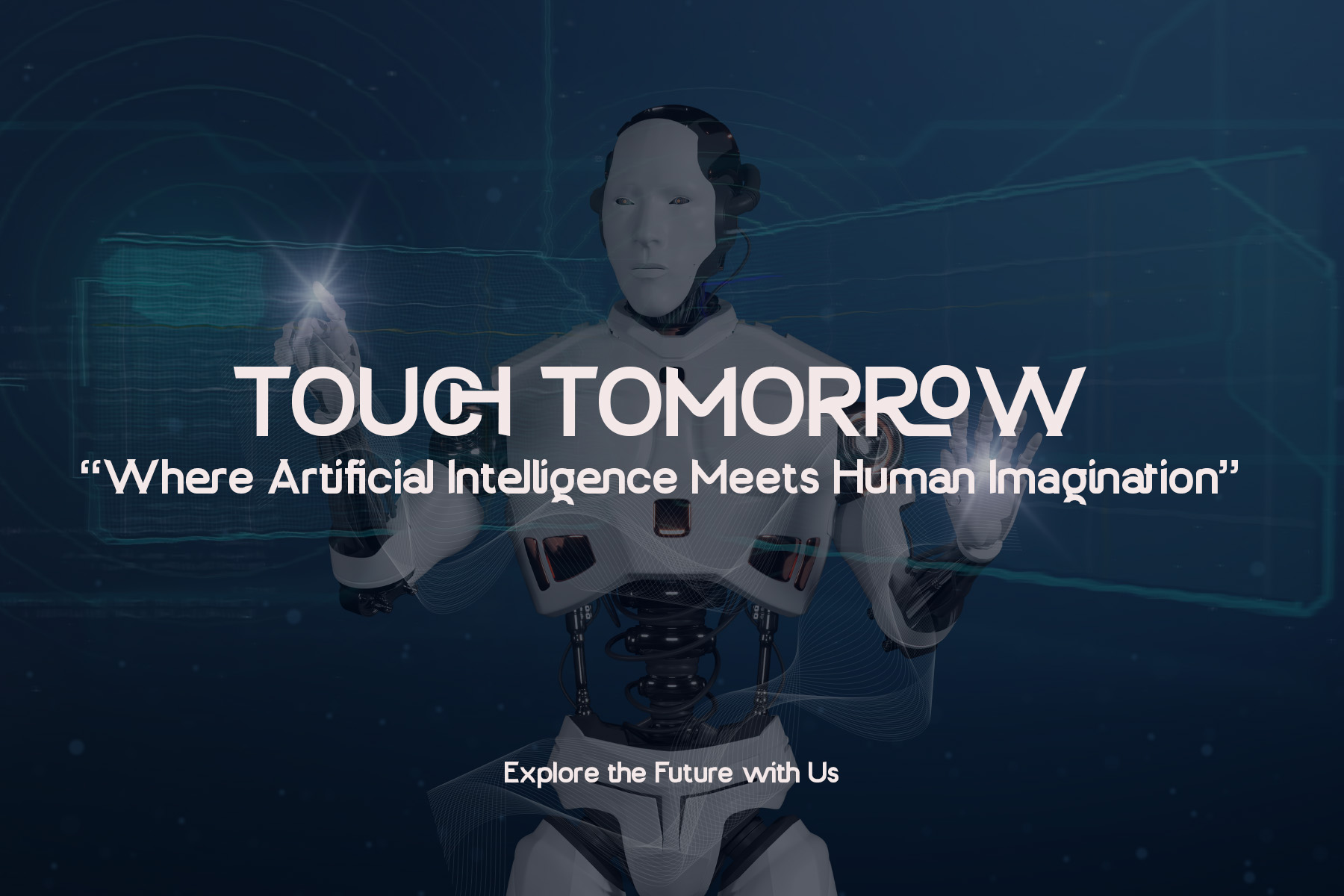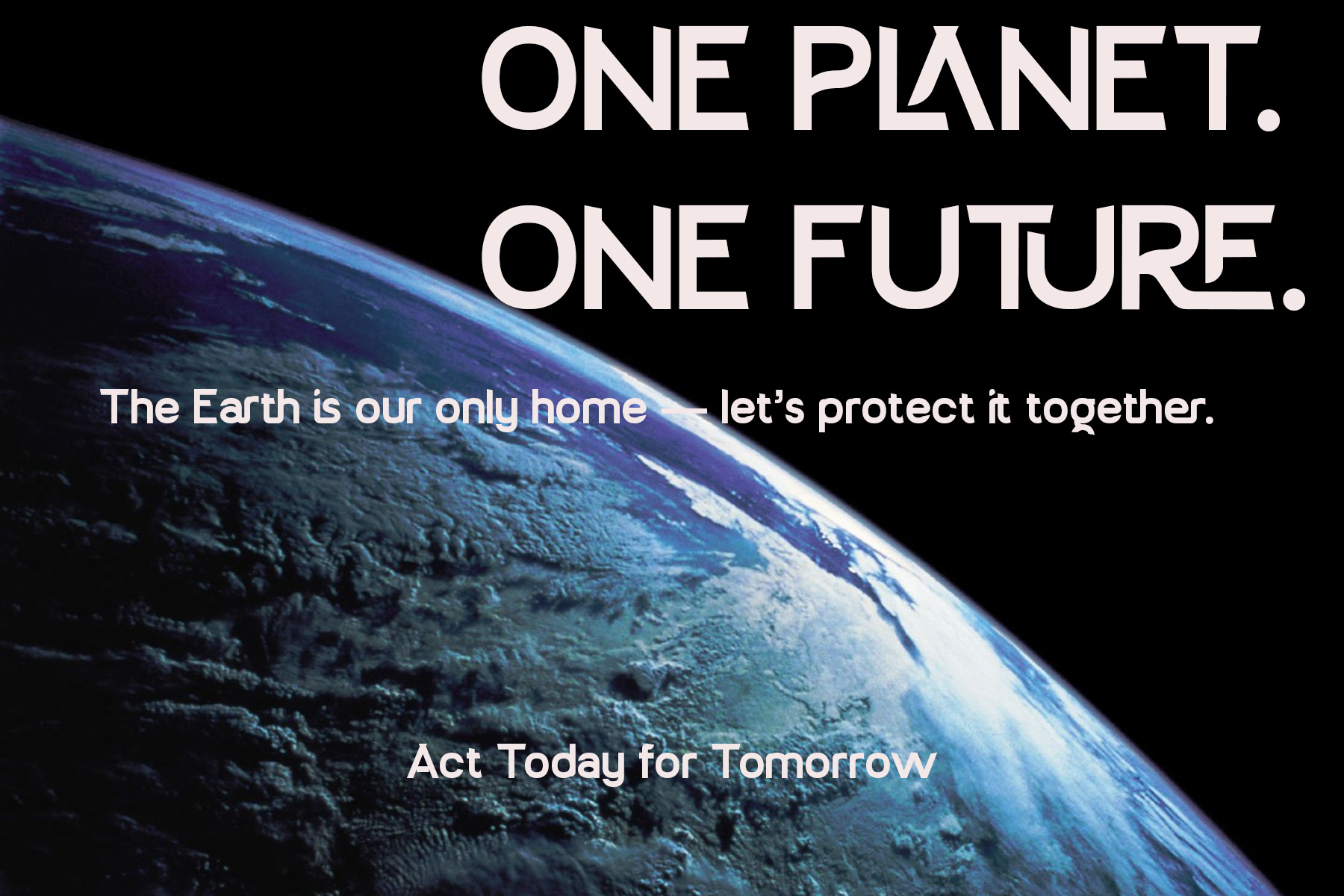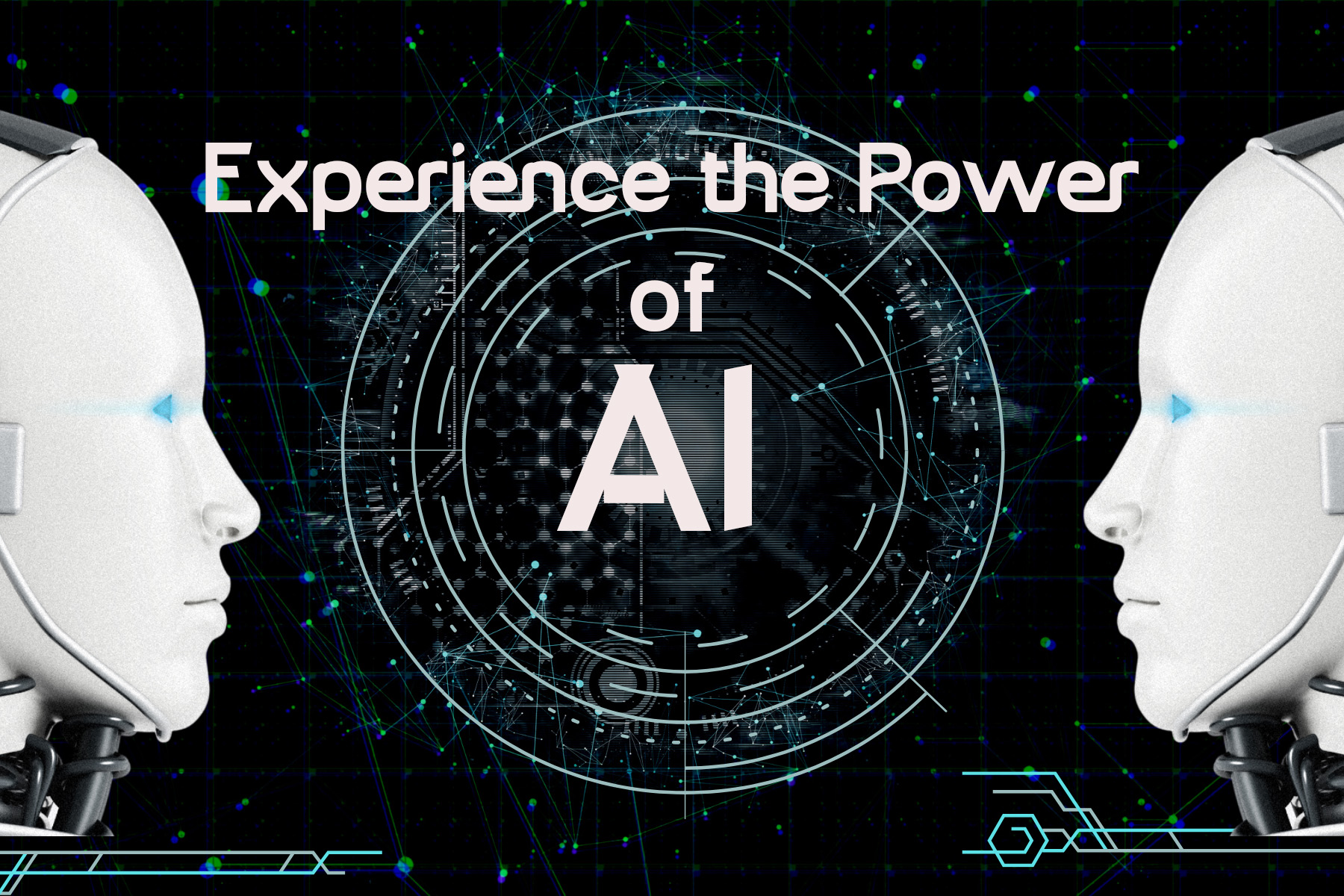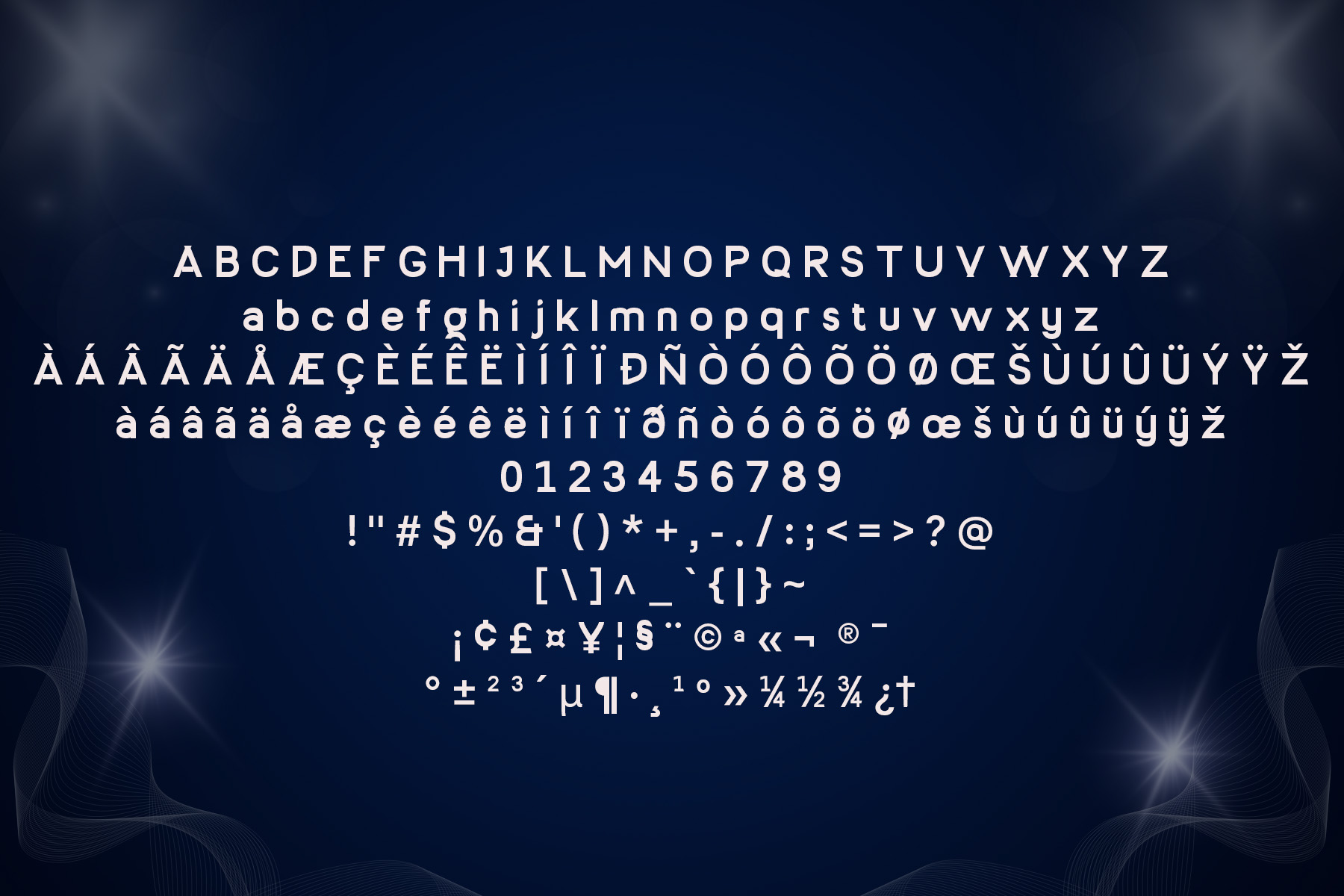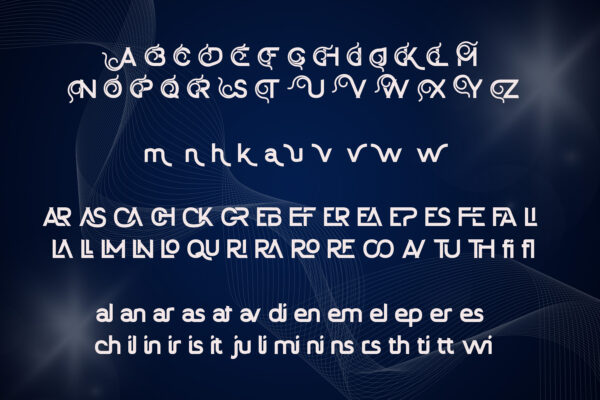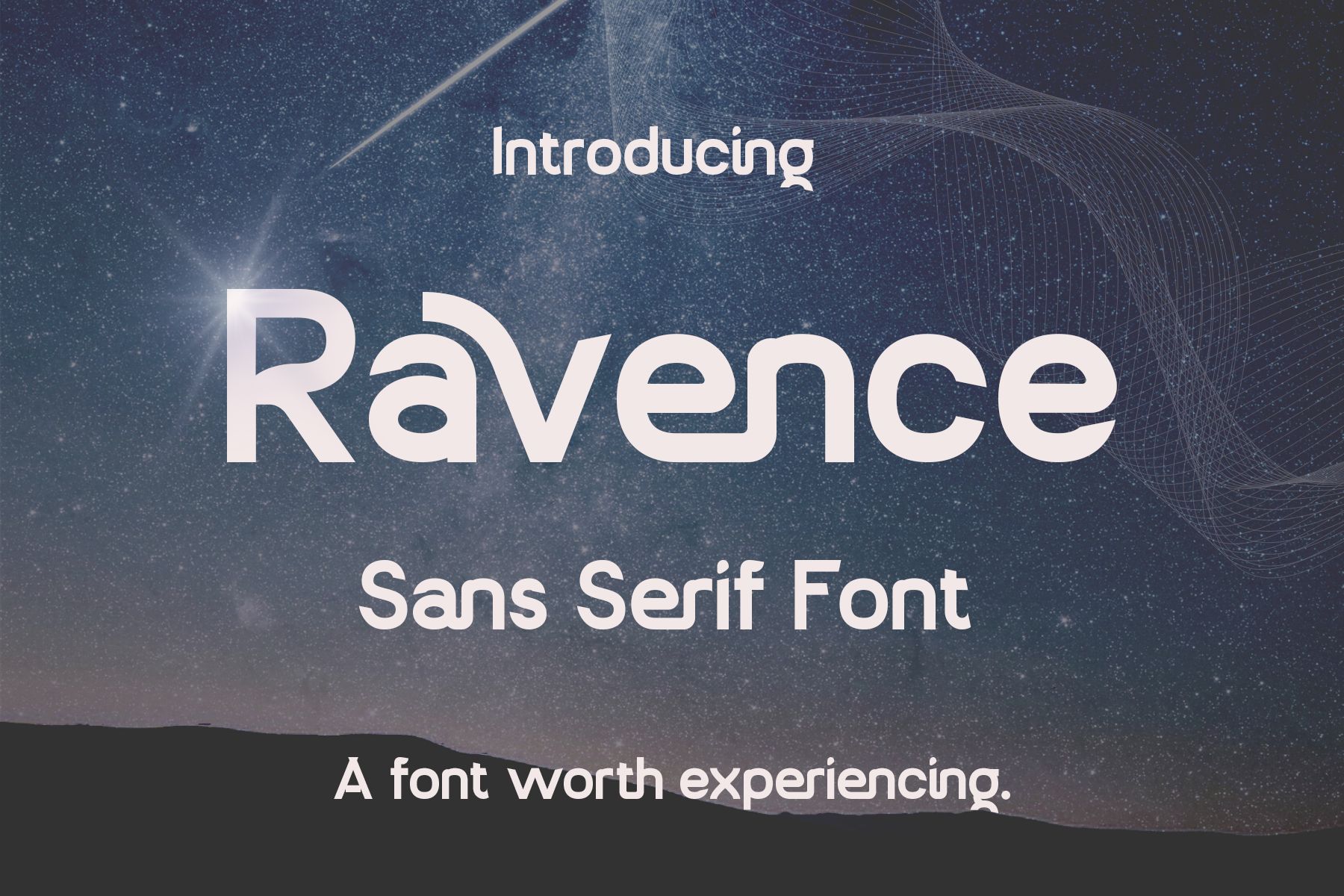
Ravence – Modern Sans Serif Font
Ravence
Ravence Sans Serif Font
Ravence is a modern sans serif font that blends clean geometry with subtle futuristic details. Designed to be both minimal and distinctive, it brings a fresh character to your typography, making it perfect for creative professionals who want to stand out.
With smooth curves, balanced proportions, and stylish letterforms, Ravence adapts beautifully to a wide range of projects. Whether you are working on branding, logos, editorial layouts, packaging, digital products, or social media content, this font ensures clarity while maintaining a bold and contemporary feel.